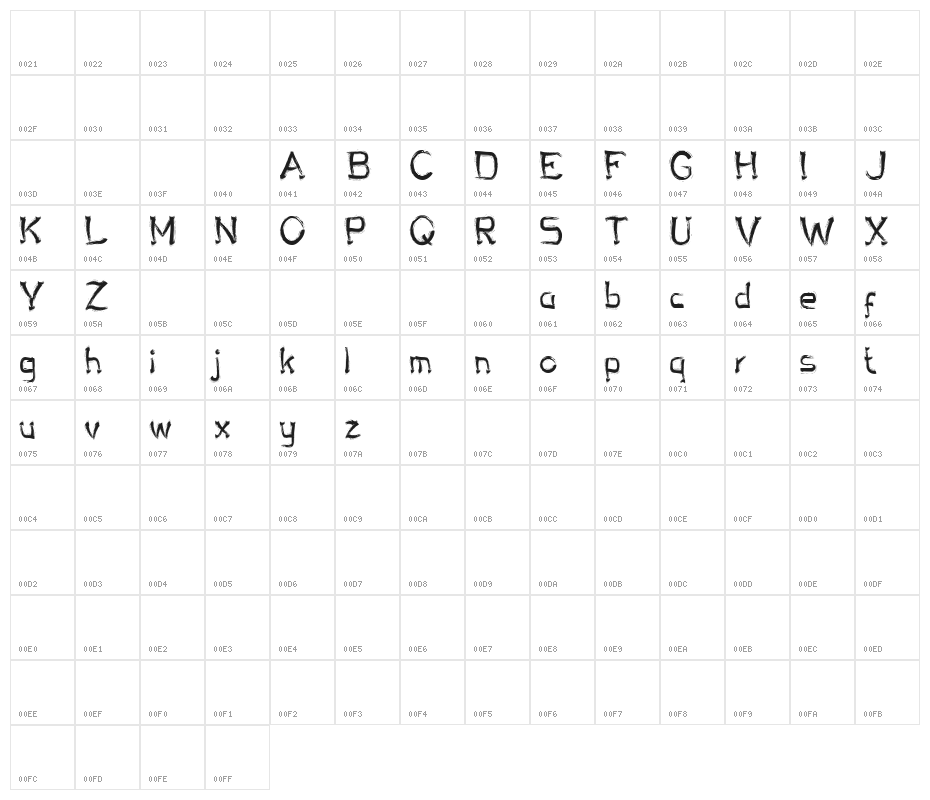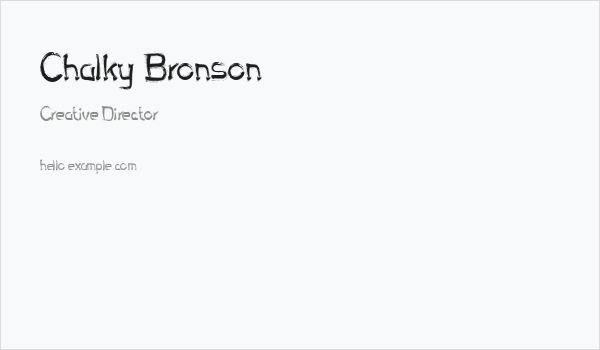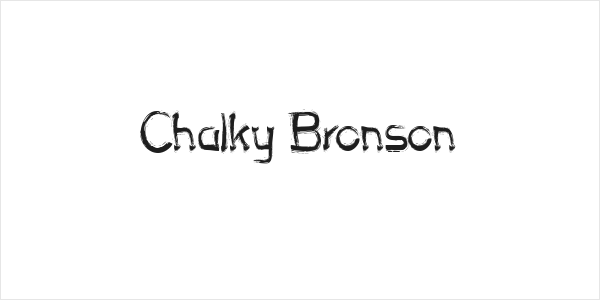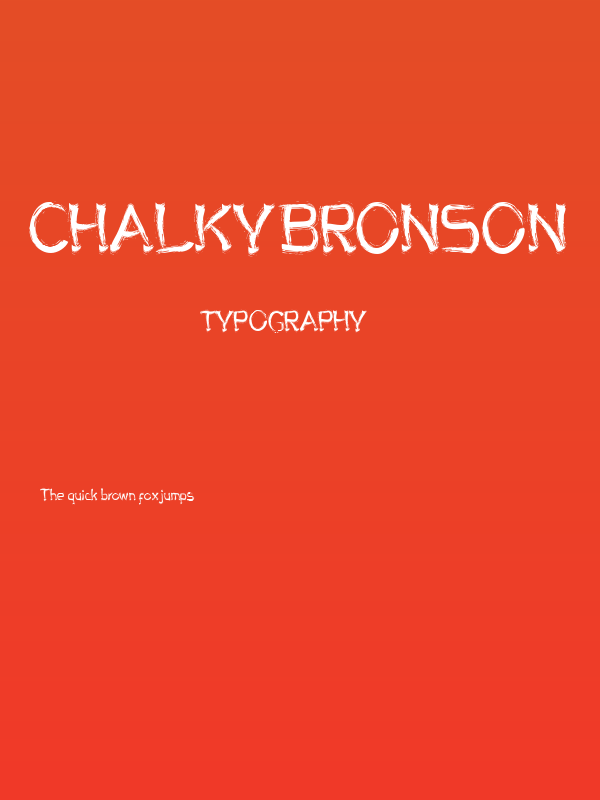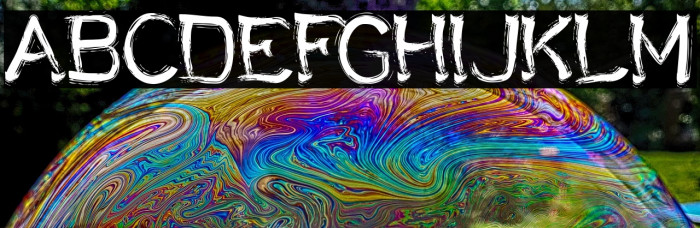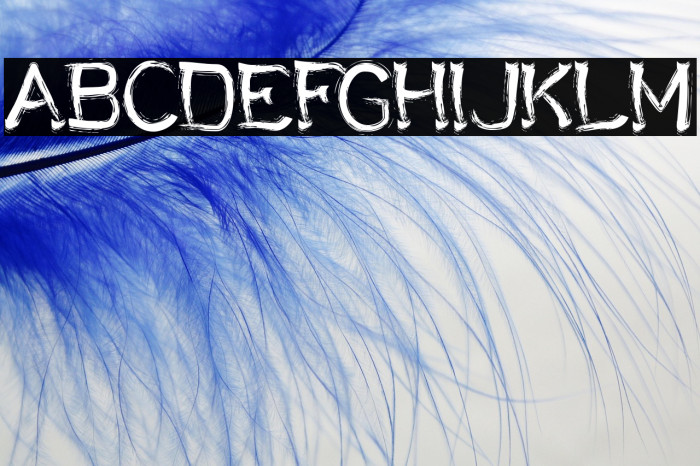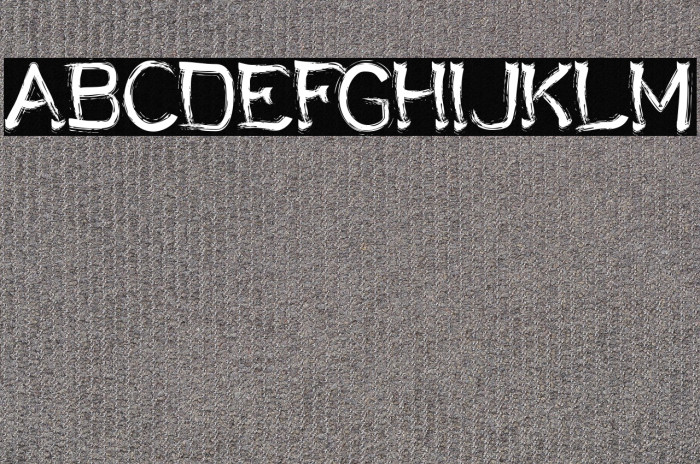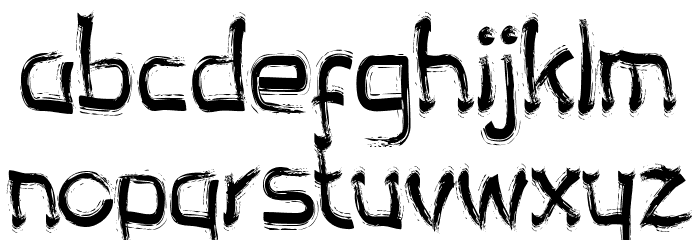
Chalky Bronson Font
Chalky Bronson Description
This font features a bold, textured appearance reminiscent of chalk or brush strokes, giving it a raw and artistic feel. The characters are slightly irregular, adding to the hand-drawn aesthetic. The uppercase and lowercase letters maintain a consistent style, with each character exhibiting unique brush-like textures. The numbers and special characters follow the same design principles, ensuring a cohesive look across all glyphs. This font is ideal for projects that require a creative and informal touch, such as posters, art projects, or educational materials.
| Overall Style | Artistic, Hand-drawn |
| Proposed Projects | Ideal for posters, art projects, educational materials, and creative designs. |